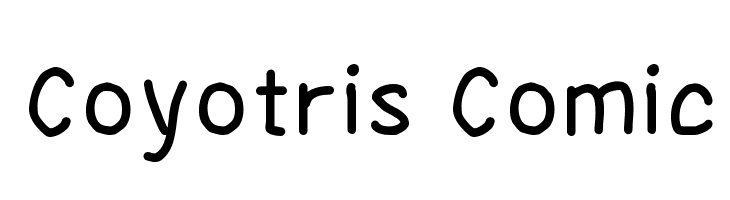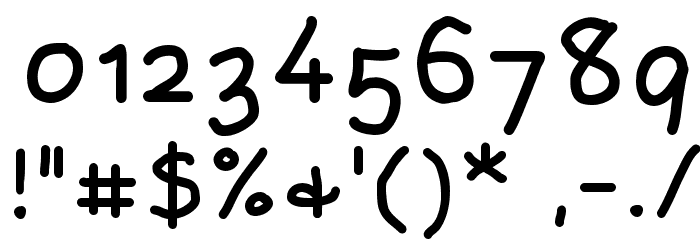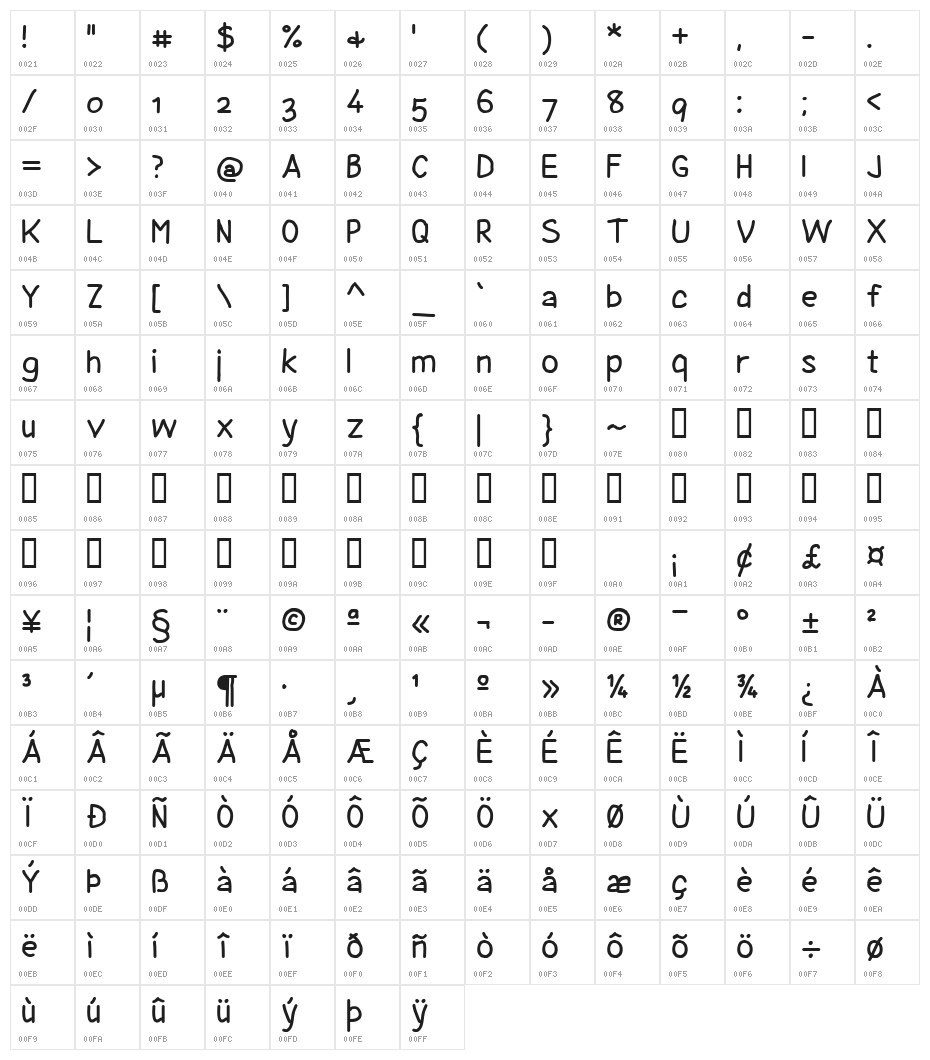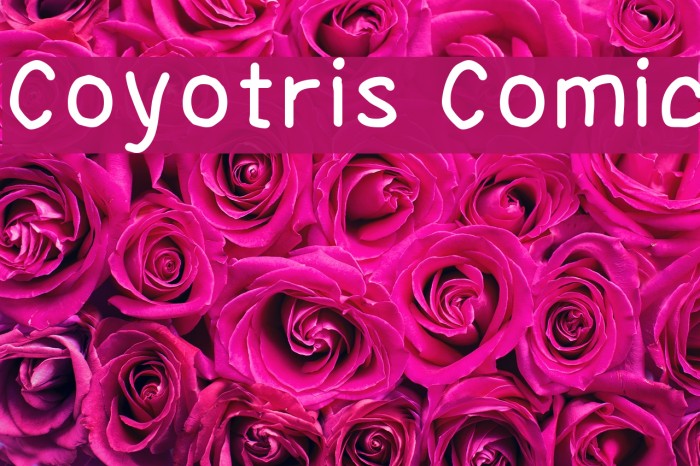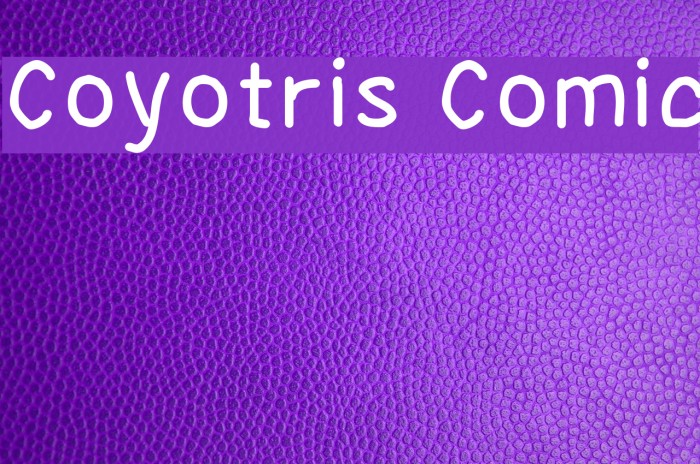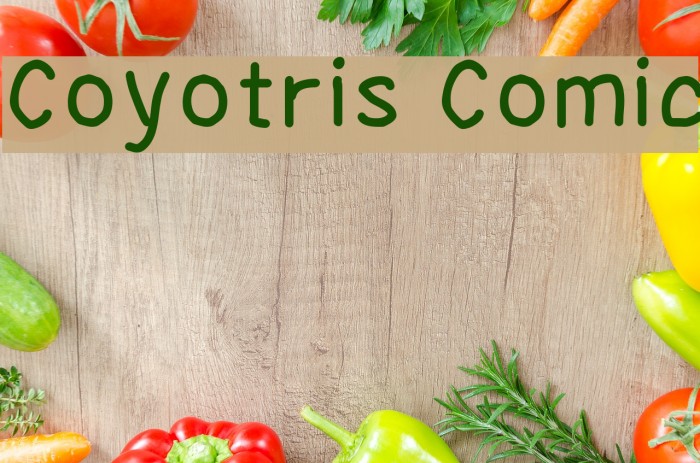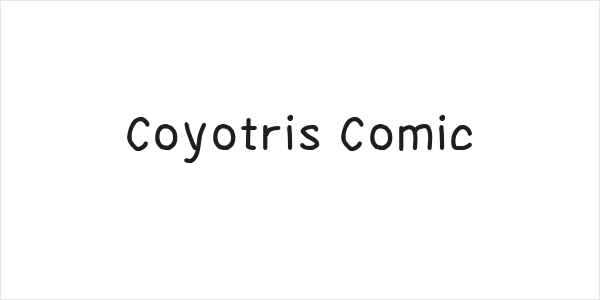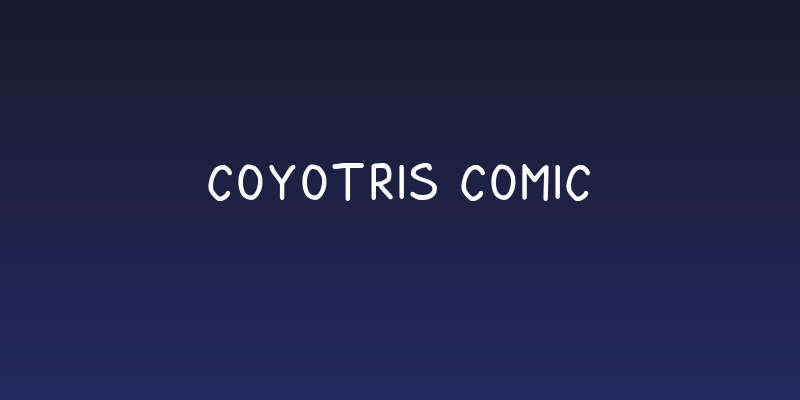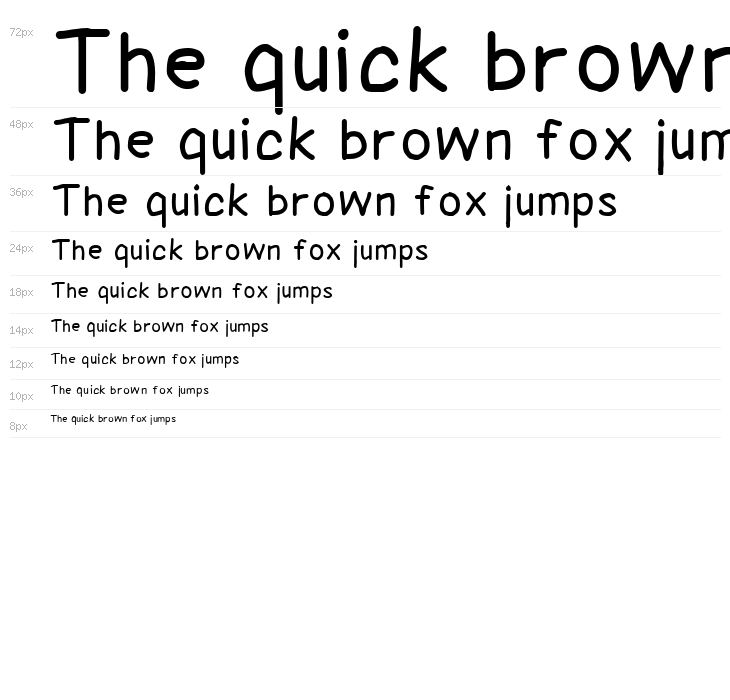
Coyotris Comic Font
Coyotris Comic Description
This playful and informal font features rounded, slightly irregular characters that give it a hand-drawn appearance. The letters are bold and have a consistent stroke width, contributing to a friendly and approachable look. The uppercase and lowercase letters maintain a uniform style, with rounded edges and a casual flow. Numbers and special characters are designed to match the whimsical style, making them easy to read while maintaining the font's overall charm. This font is perfect for projects that require a fun and lighthearted touch, such as children's books, comic strips, or playful branding.
| Overall Style | Playful, Casual |
| Proposed Projects | Ideal for children's books, comic strips, playful branding, and casual invitations. |